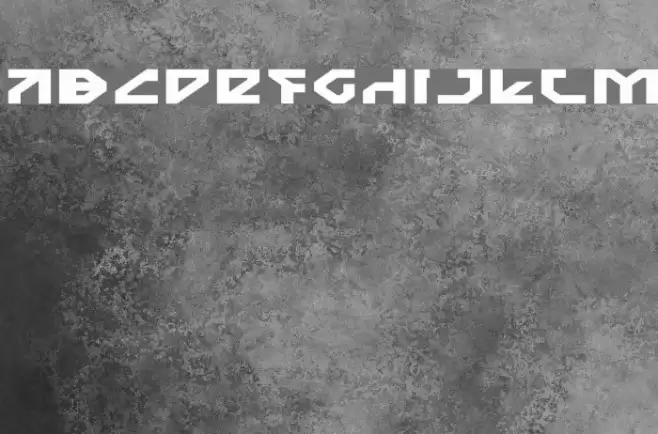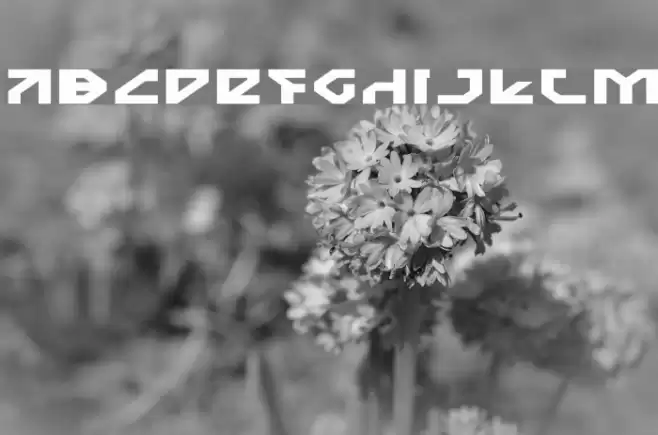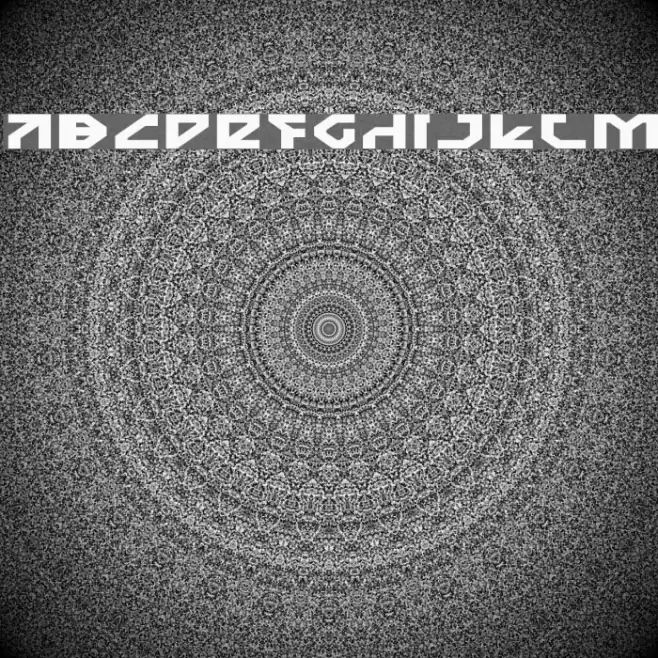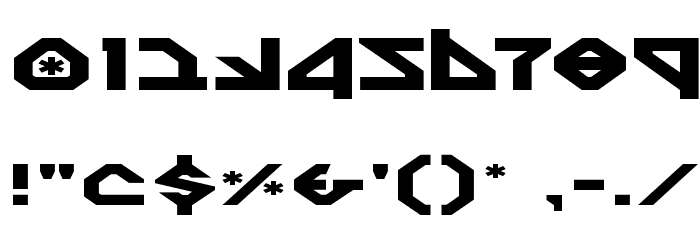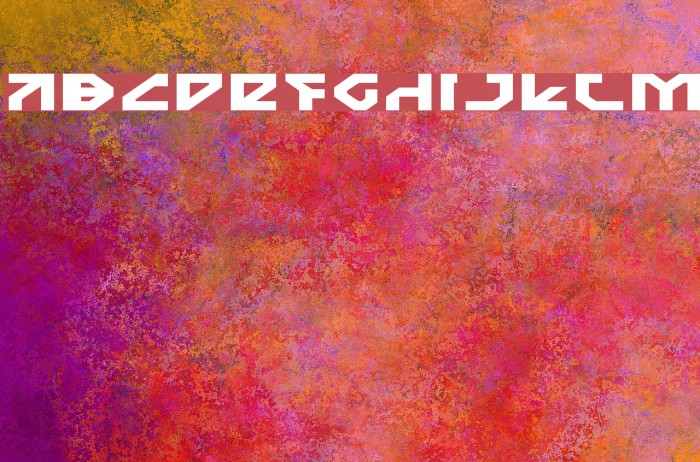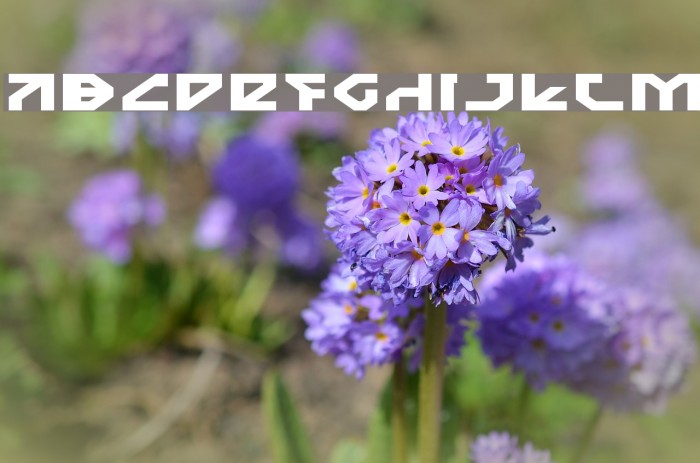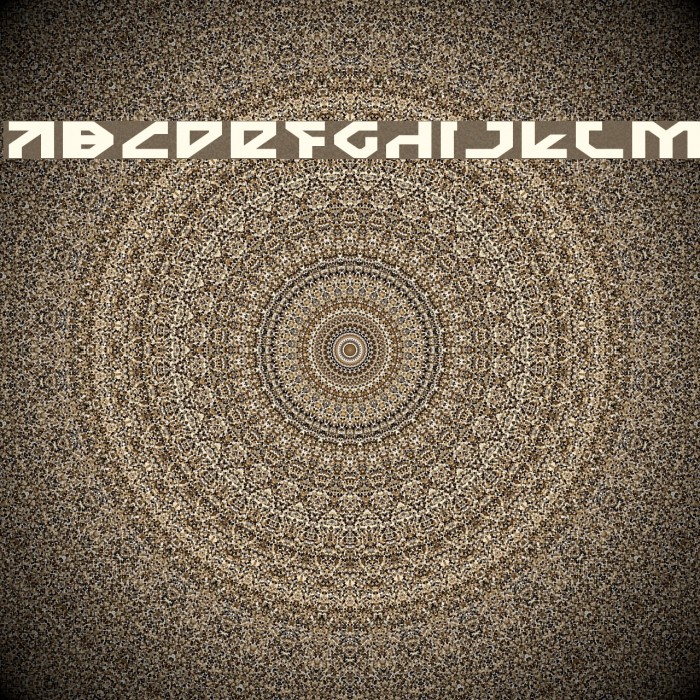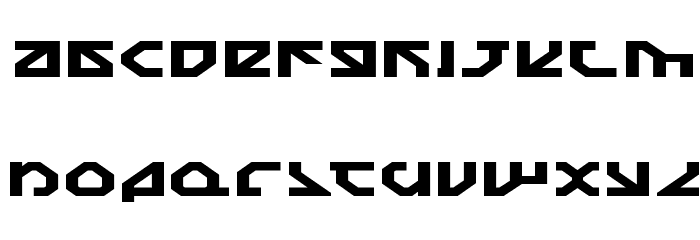
Nostromo Expanded Font
Nostromo Expanded Description
This font features a futuristic and geometric design, characterized by sharp angles and bold lines. Each character is crafted with a unique, angular style that gives it a distinct, sci-fi appearance. The uppercase and lowercase letters maintain a consistent design language, with a focus on symmetry and balance. Numbers and special characters are designed to complement the overall aesthetic, making the font suitable for projects that require a modern and edgy look. The expanded width of the characters adds to its bold presence, making it ideal for attention-grabbing headlines or logos.
- Proposed Projects: Ideal for sci-fi themed projects, technology branding, video game titles, and futuristic posters.